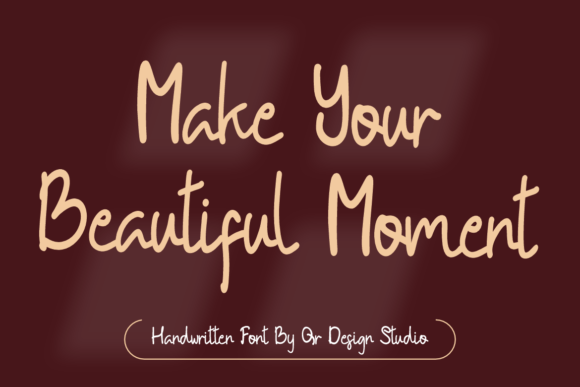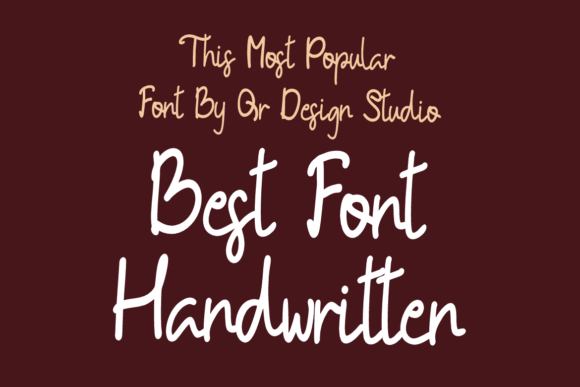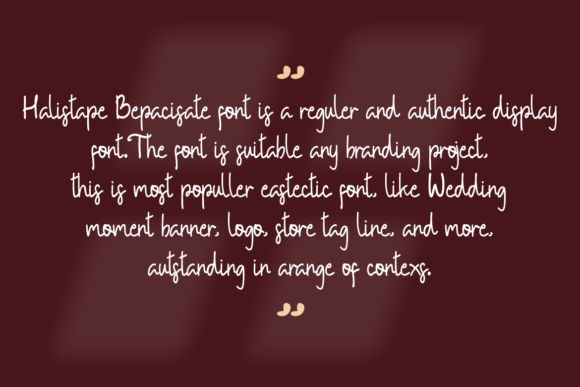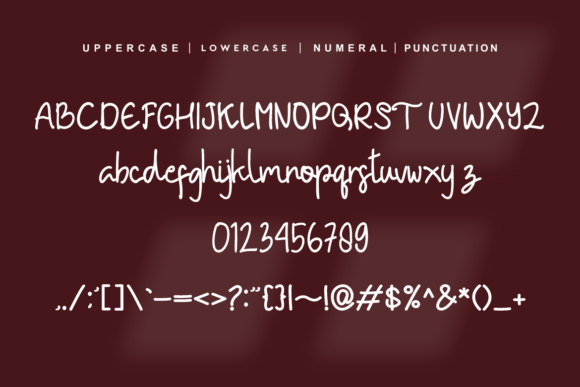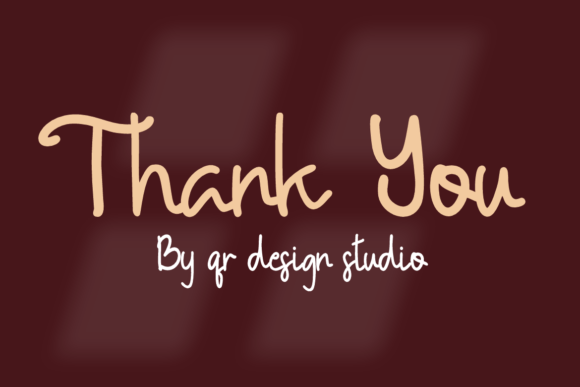
Introducing Halistape Bepacisate Font: The Ultimate Elegance for Your Designs
Are you a designer or crafter looking for a font that exudes elegance and charm? Look no further than the Halistape Bepacisate Font. This beautiful handwritten font is perfect for adding a touch of sophistication to your designs, and its versatility makes it suitable for a wide range of projects.
A Font that Feels Equally Charming and Elegant
The Halistape Bepacisate Font is a true gem, with a unique and captivating style that feels equally charming and elegant. Its delicate lines and curves create a sense of refinement and luxury, making it perfect for designs that require a high level of sophistication. Whether you’re working on a wedding invitation, a thank you card, or a business logo, this font is sure to impress.
One of the best things about the Halistape Bepacisate Font is its versatility. It looks stunning on a wide range of design projects, including:
- Wedding invitations: Add a touch of romance and elegance to your wedding invitations with this beautiful font.
- Thank you cards: Express your gratitude in style with this charming font.
- Quotes: Make your quotes stand out with the Halistape Bepacisate Font’s elegant and refined style.
- Greeting cards: Create beautiful and memorable greeting cards with this lovely font.
- Logos: Add a touch of sophistication to your business logo with this elegant font.
- Business cards: Make a great impression with this refined and professional font.
Why Choose the Halistape Bepacisate Font?
With so many fonts to choose from, why should you choose the Halistape Bepacisate Font? Here are just a few reasons:
- Unique and captivating style: This font has a one-of-a-kind style that will set your designs apart.
- Versatility: It can be used on a wide range of design projects, from wedding invitations to business logos.
- Elegance: It exudes sophistication and refinement, making it perfect for designs that require a high level of elegance.